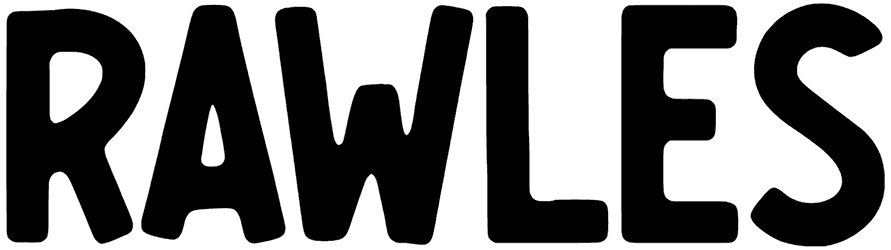
Rawles Font
If you want to create perfect graphic content, every piece of your work, including font, must be flawless, and in the realm of designing high-end illustrations, stickers, storybook covers, and social media posts, a playful cartoon font such as Rawles can be really helpful.
This all-caps handwritten font has highly legible characters and boosts the vibe of jauntiness, drama, vitality, and dreaminess in your work. In addition to this masterpiece, you can find many remarkable fonts in the RB collection.